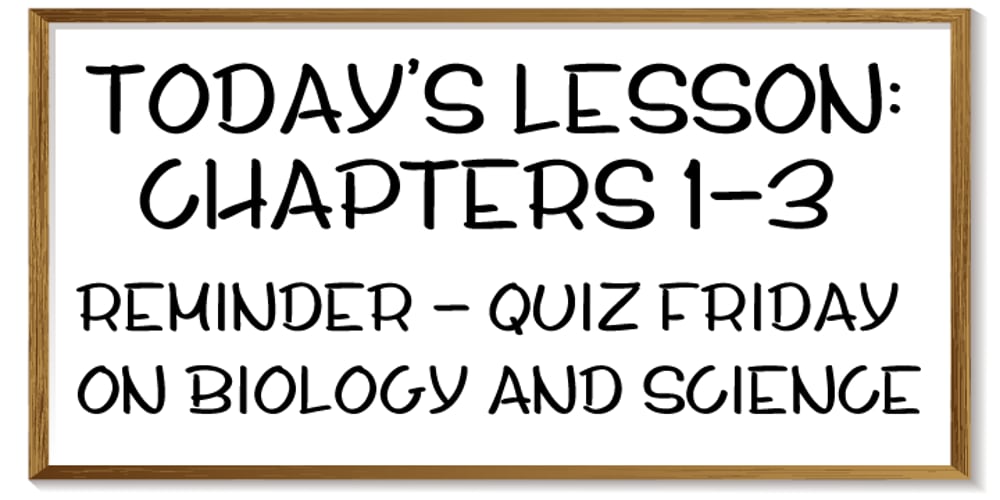
Whiteboard Modern
Whiteboard Modern font
Whiteboard Modern Font Family was designed by Jay Hilgert and published by Albatross. Whiteboard Modern contains 4 styles and family package options. Whiteboard Modern is a hand-drawn face resembling the flowing motion and freedom of writing in an open space, such as a dry-erase board.